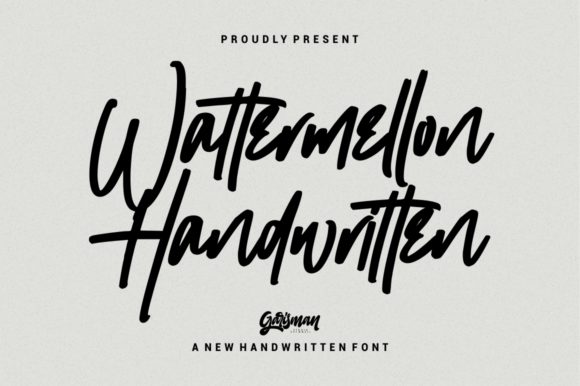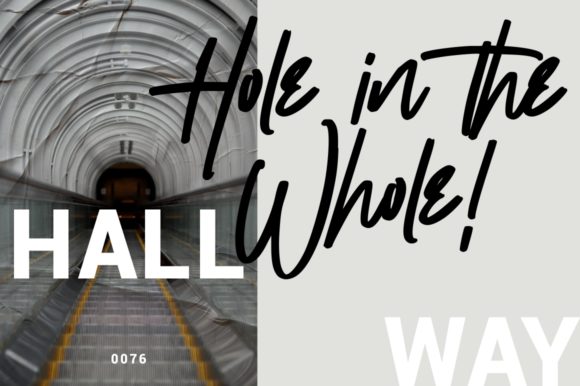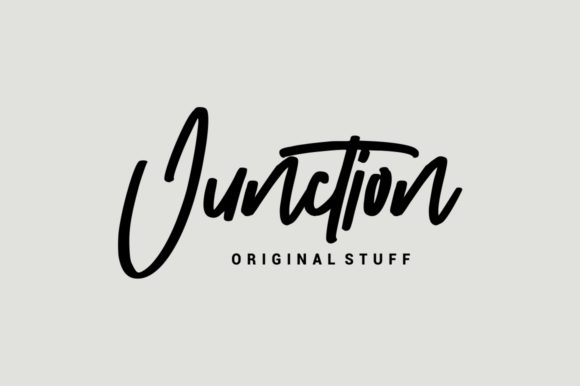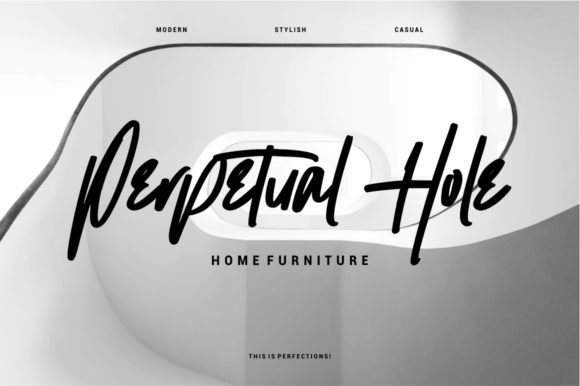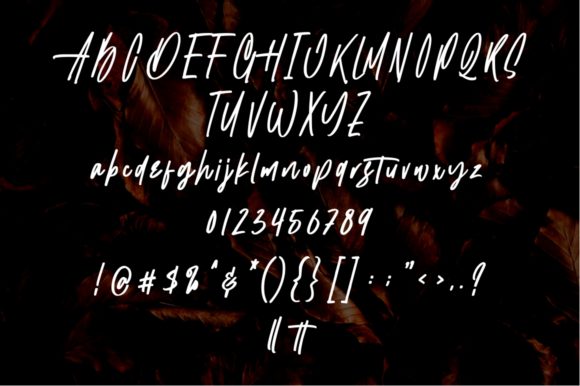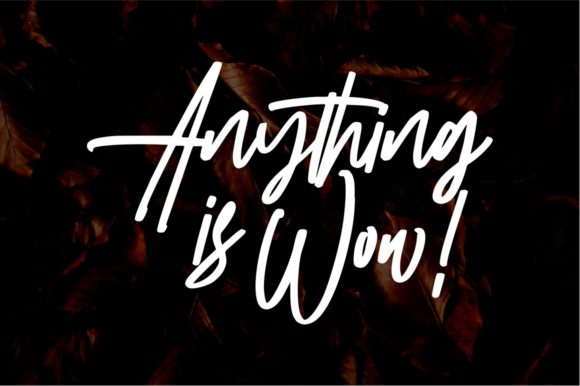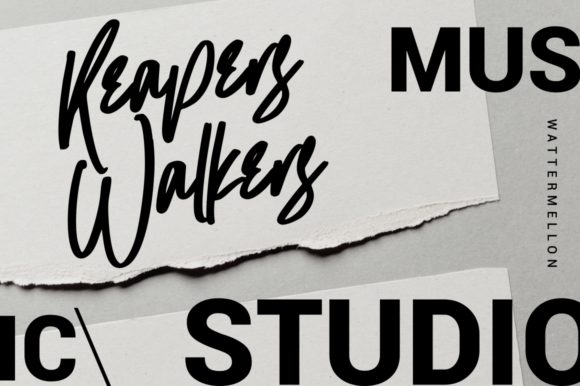
Wattermellon Font
About Wattermellon Font
Wattermellon is a handwritten font with a bold design. Get inspired by its whimsical charm, and turn any design idea into a true standout!